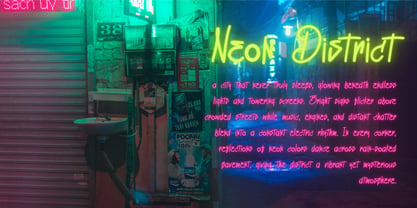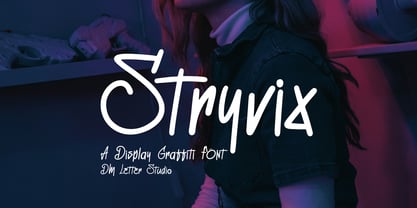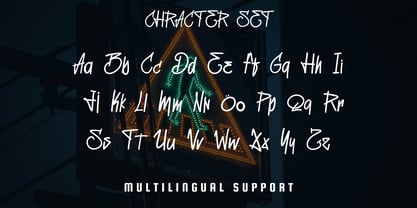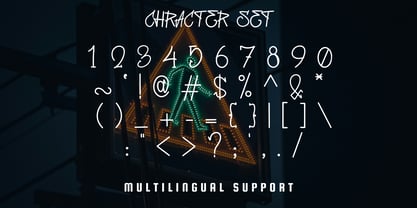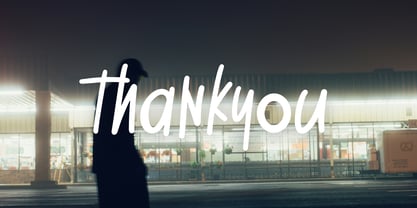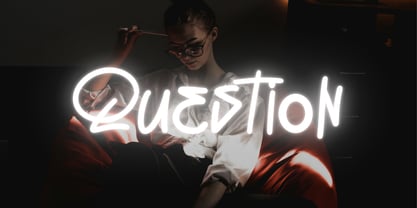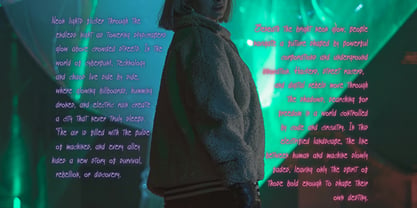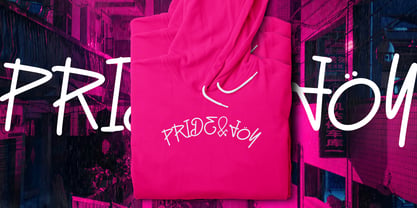
Stryvix
The Stryvix Font Family was designed by Dimas Prasetyo and published by DM Studio. Stryvix contains 1 styles. More about this family
Meet Stryvix, the Display Graffiti Font Stryvix is a bold graffiti display font designed to bring raw street energy into your typography. The letterforms feel sharp, expressive, and rebellious, like a fresh tag sprayed across a concrete wall. Each character carries a strong urban attitude that instantly makes designs look edgy and attention-grabbing. Use Stryvix for streetwear branding, music posters, gaming graphics, YouTube thumbnails, hip hop visuals, sticker art, and bold merchandise. As a result, your typography feels loud, urban, and full of personality.   Why Stryvix sells First, Stryvix installs quickly and works smoothly in Canva, Photoshop, and Illustrator. Next, the graffiti-inspired structure keeps text readable while still delivering a strong street character. Then your layouts come together faster because the font already brings attitude without needing heavy effects. Moreover, graffiti typography continues to trend across music, gaming, and youth culture niches. Therefore, Stryvix fits perfectly into modern urban display font collections.   Fast layouts with the Stryvix Font Start with short, punchy words for maximum visual impact. After that, add spray textures, paint splashes, or thick outlines to strengthen the graffiti look. Because the shapes are bold and energetic, keep the backgrounds simple to maintain readability. In addition, pair it with a clean sans serif for captions, dates, or supporting information. Finally, try palettes like black and neon green, red and white, purple and cyan, or yellow and charcoal for powerful street contrast.   Creative uses and quick wins Streetwear logos and apparel graphics Music posters and hip hop event flyers Gaming thumbnails and esports branding Sticker designs and urban social media content What you get Uppercase and lowercase letters Numbers and basic punctuation Design tips for Stryvix Use Stryvix for headlines, logos, and bold display text instead of long paragraphs. Also, experiment with spray textures or grunge overlays to enhance the street aesthetic. For print, use high-contrast color combinations to keep the shapes clear. For digital designs, scale slightly larger so the bold edges remain crisp on smaller screens. Finally, combine it with paint splatters, halftone dots, or geometric shapes for a stronger graffiti vibe.